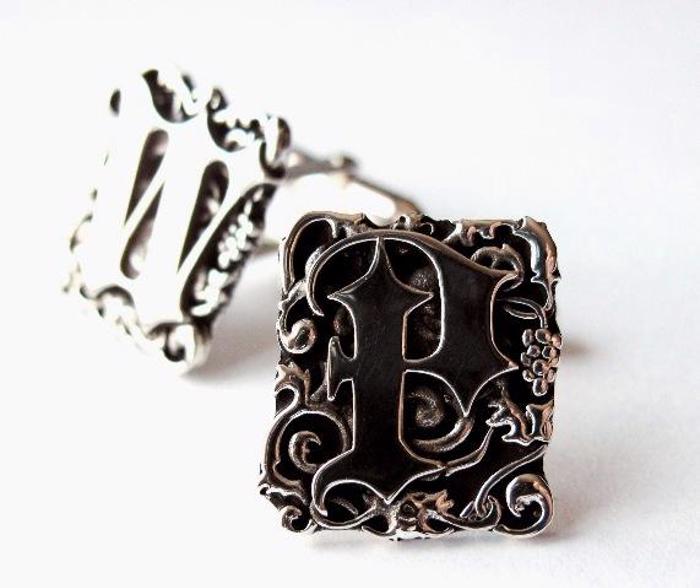
Blackletter Font
Blackletter ExtraBold
Blackletter Shadow
Blackletter Font is a Gothic font and was created on . Blackletter Font has been downloaded 373,778 times, added to 5,752 collections, and liked 250 times.
This is my bandname
lol wow.
great tat letters
MY FAVORITE!!!!!
so lik cute lollx jajja
So damn KOOL! love it! *-*
Perrrrrfect 😛 me gonna use this for a logo
Really dig this style of font...
@metallica4life really cool
Doing some wood burning and this is perfect.
First thing I thought was "Black Butler!"
nice font !!!!!!!
my hand in MACK tattoo this font........
Nice fonts. Sometimes they come without numbers and necessary glyphs. But these come with what you need! Thanks, super selection